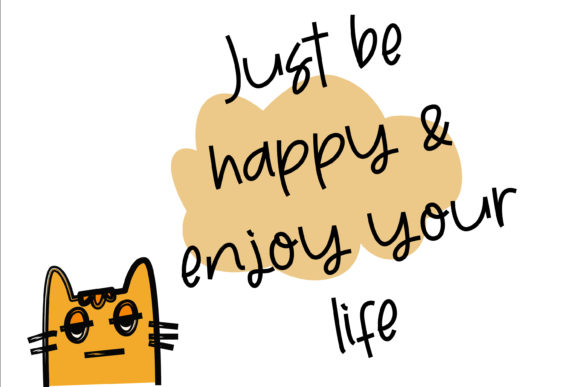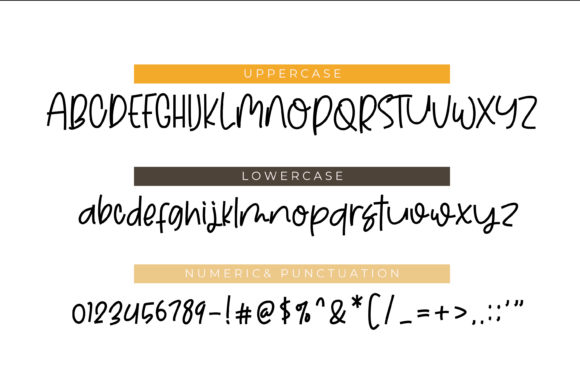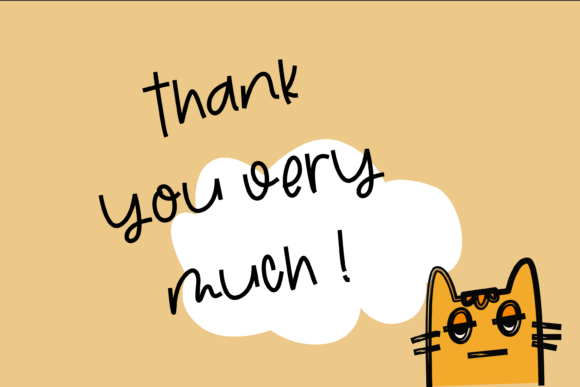
Discover the Purrfect Font for Your Next Design Project
Have you ever stared at a blank page, desperately searching for the perfect font to bring your design to life? The frustration of scrolling through endless options, only to settle for something that just doesn’t quite cut it? Well, take a deep breath and let us introduce you to the Cats Mumbol Font – a game-changing display font that’s sure to make your designs stand out.
This thin yet trendy font is a designer’s dream come true. With its cute and playful aesthetic, it’s perfect for adding a touch of whimsy to posters, flyers, and prints. The Cats Mumbol Font is more than just a pretty face – it’s a valuable tool for creatives looking to elevate their designs and take their work to the next level.
Cats Mumbol Font Key Features
- Font Style: Script, Handwritten, Decorative
- Unique Characteristics: Unique handwritten style, swashes, and ligatures for a personal touch
Cats Mumbol Font Review
Overall, I think the Cats Mumbol font is an interesting addition to any designer’s toolkit, but it’s not without its quirks. Here’s my honest take.
- The font’s playful and quirky nature makes it perfect for adding some personality to children’s books, posters, or other materials that need a lighthearted touch.
- The font is highly customizable, allowing designers to easily adjust the size, color, and other properties to suit their needs.
- The font’s unique letterforms and flourishes can add a touch of whimsy to any design, making it stand out from more traditional fonts.
- The font may be a bit too ornate for certain designs, such as news articles or other materials where a more straightforward approach is needed.
- The font’s complexity can make it difficult to read at smaller sizes or in certain contexts, such as on mobile devices.
- The font may not be the best choice for designs where a more formal or professional tone is required.
The Cats Mumbol font is a fun and creative addition to any designer’s toolkit, but it’s not a one-size-fits-all solution. When used judiciously, it can add a touch of personality and whimsy to designs, but it may not be the best choice for every project.
Cats Mumbol Font is ideal for creating playful and whimsical designs. Use it for:
- Food and drink labels
- Handmade crafts and DIY projects